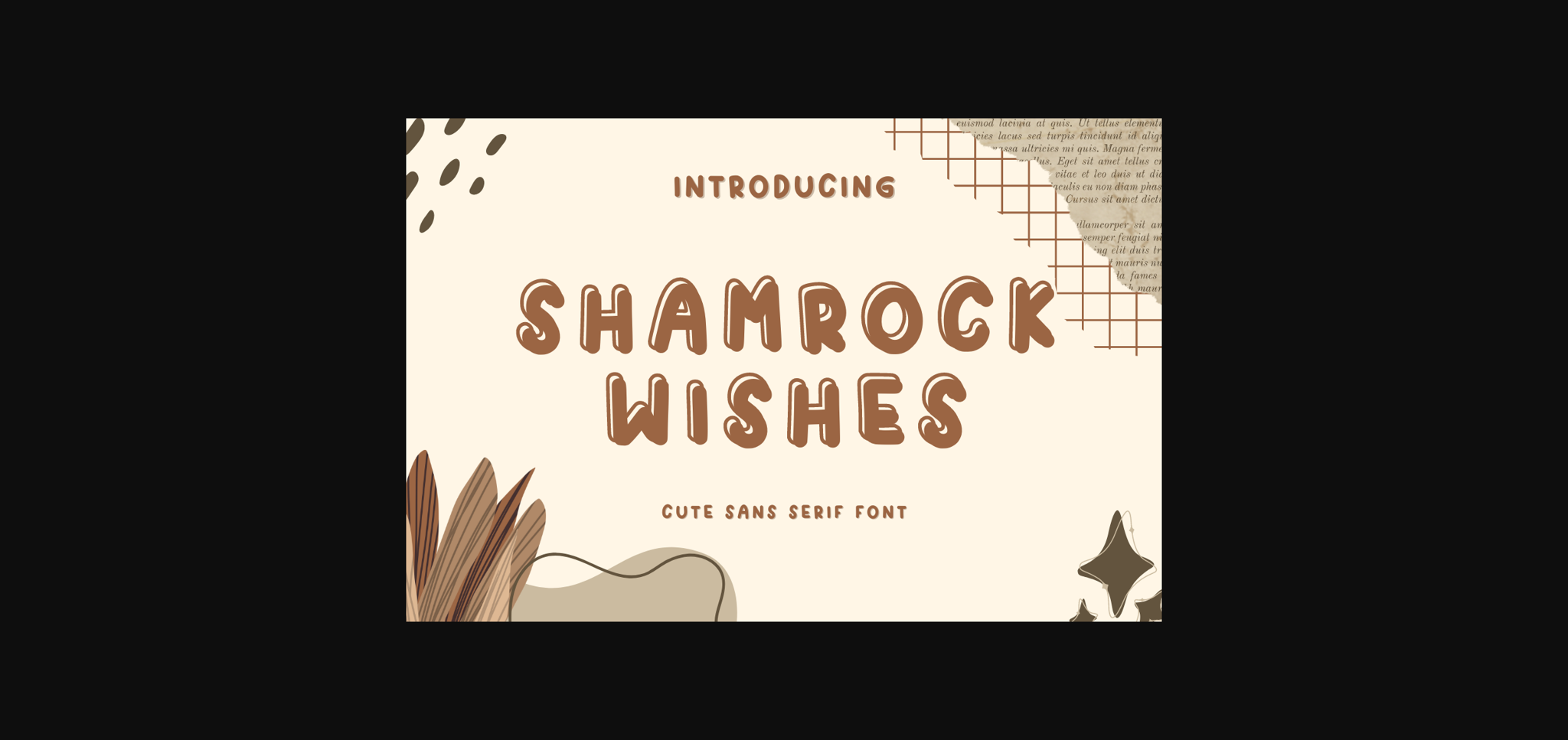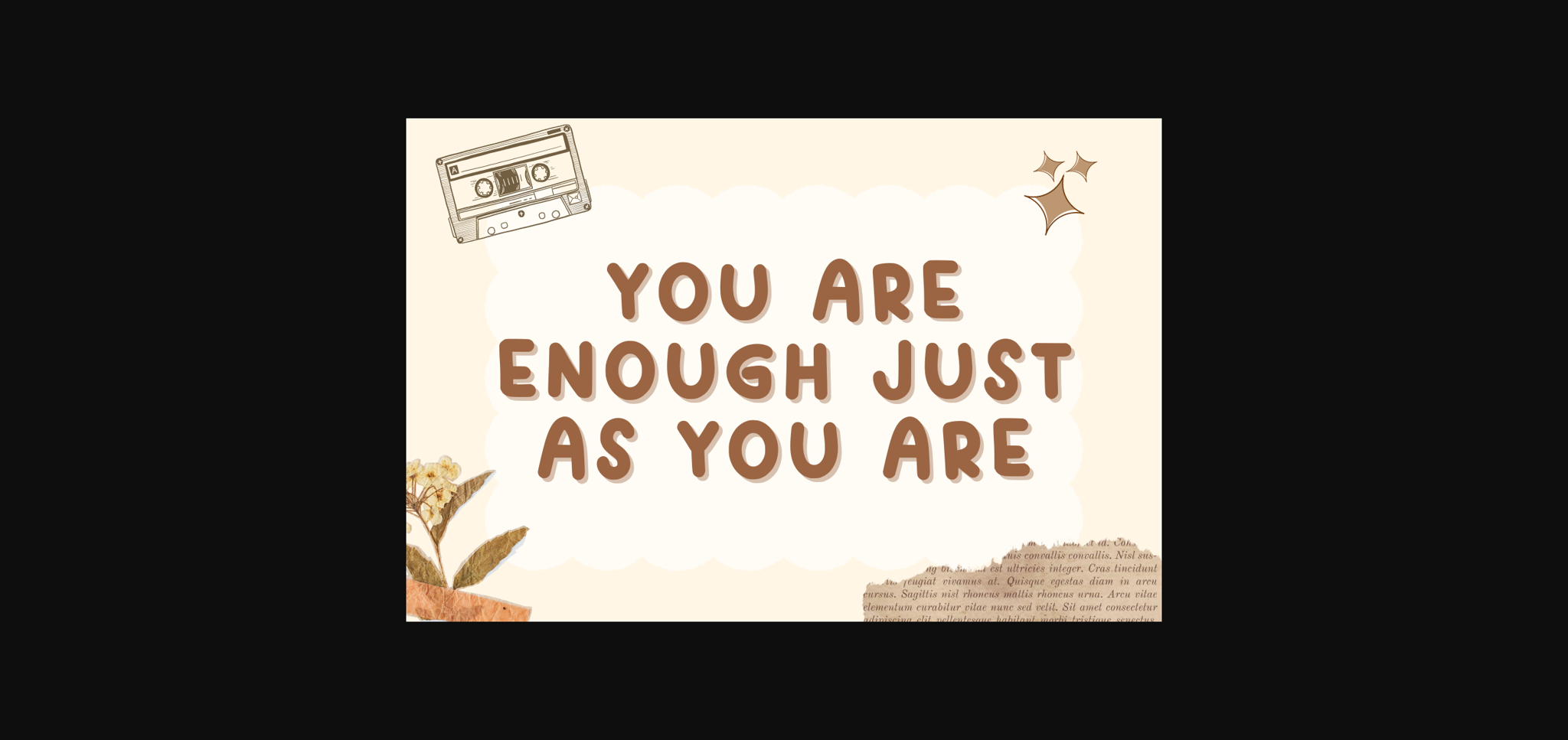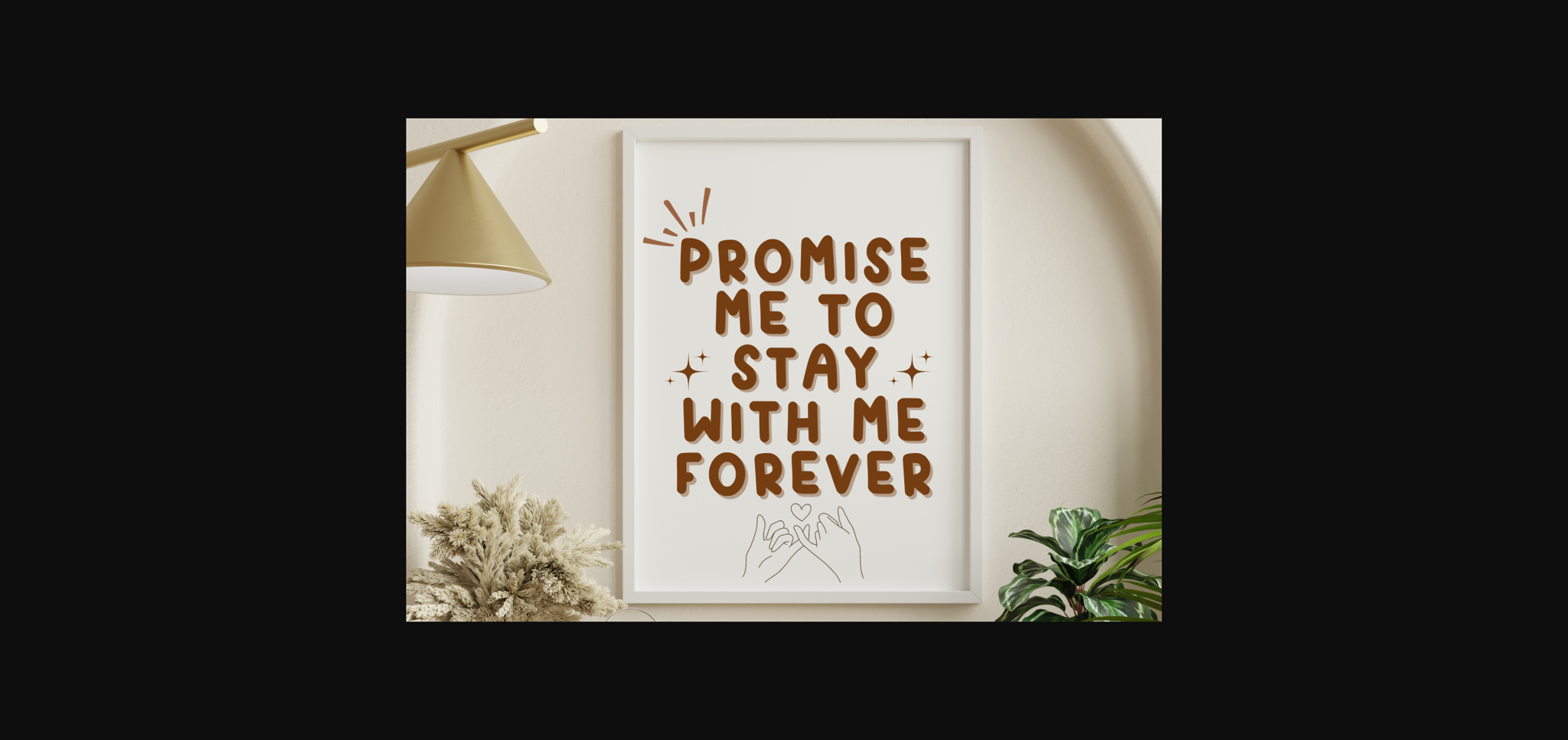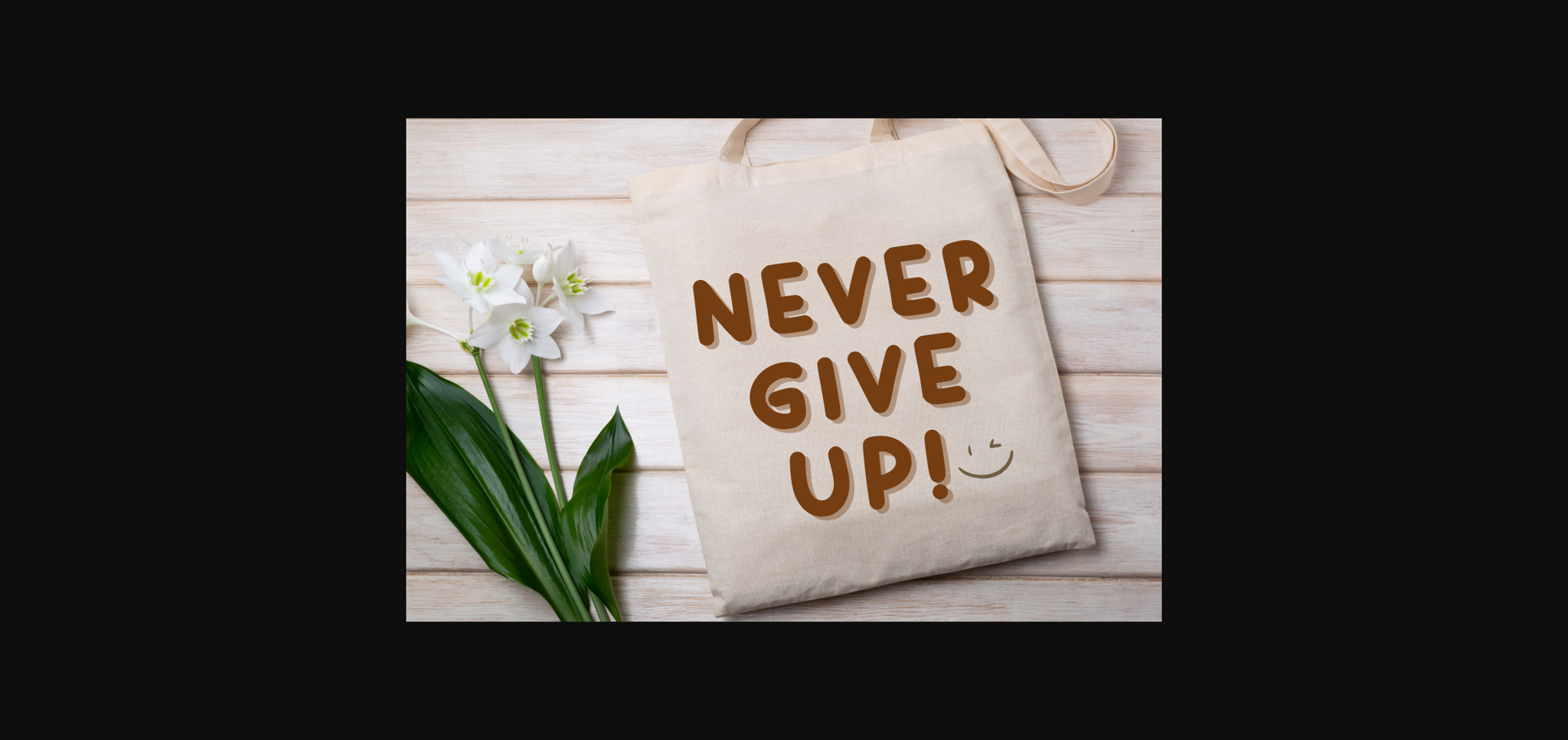
About Shamrock Wishes Font
Shamrock Wishes is a cute and adorable sans serif font. Perfect for social media, posters, stickers, notebooks and so much more.